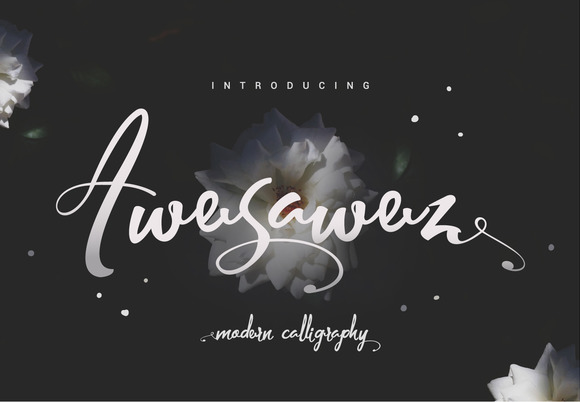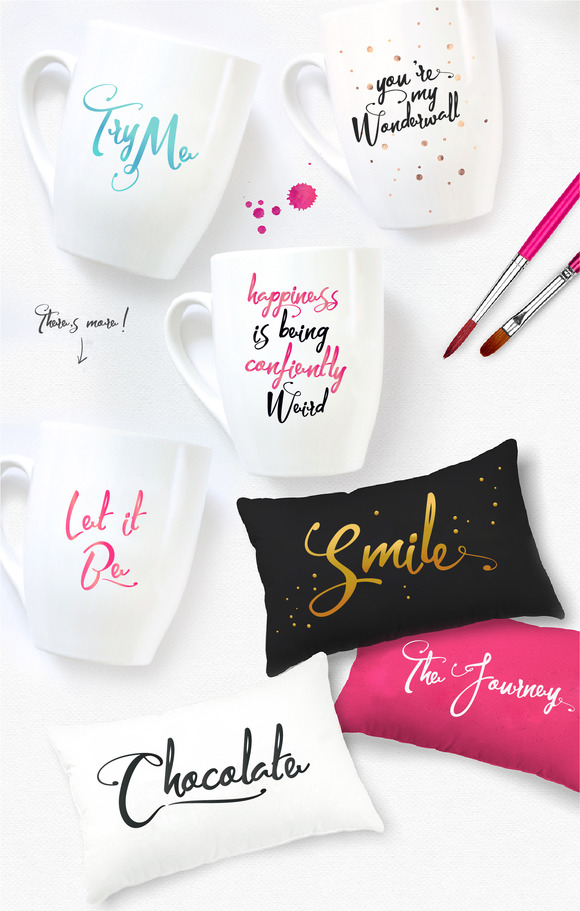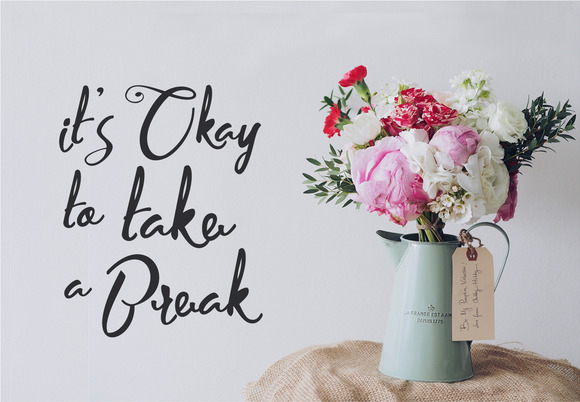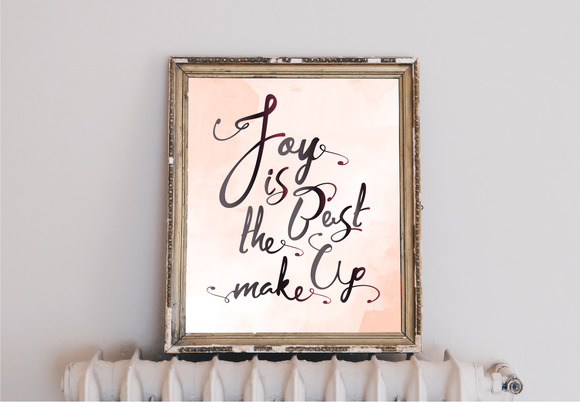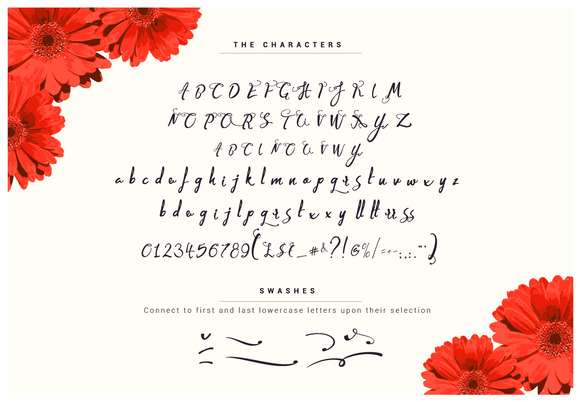
Awesawez Font
About Awesawez Font
Awesawez is a beautiful modern calligraphy style font. This elegant script is filled with loads of energy and allows you to create beautiful personalized items.
The Awesawez font is hand crafted and features loads of bouncy characters with smooth loops.
Awesawez comes with a complete set of lowercase alternates which can be accessed via the glyphs panel (make sure to enable “Stylistic Alternates”.